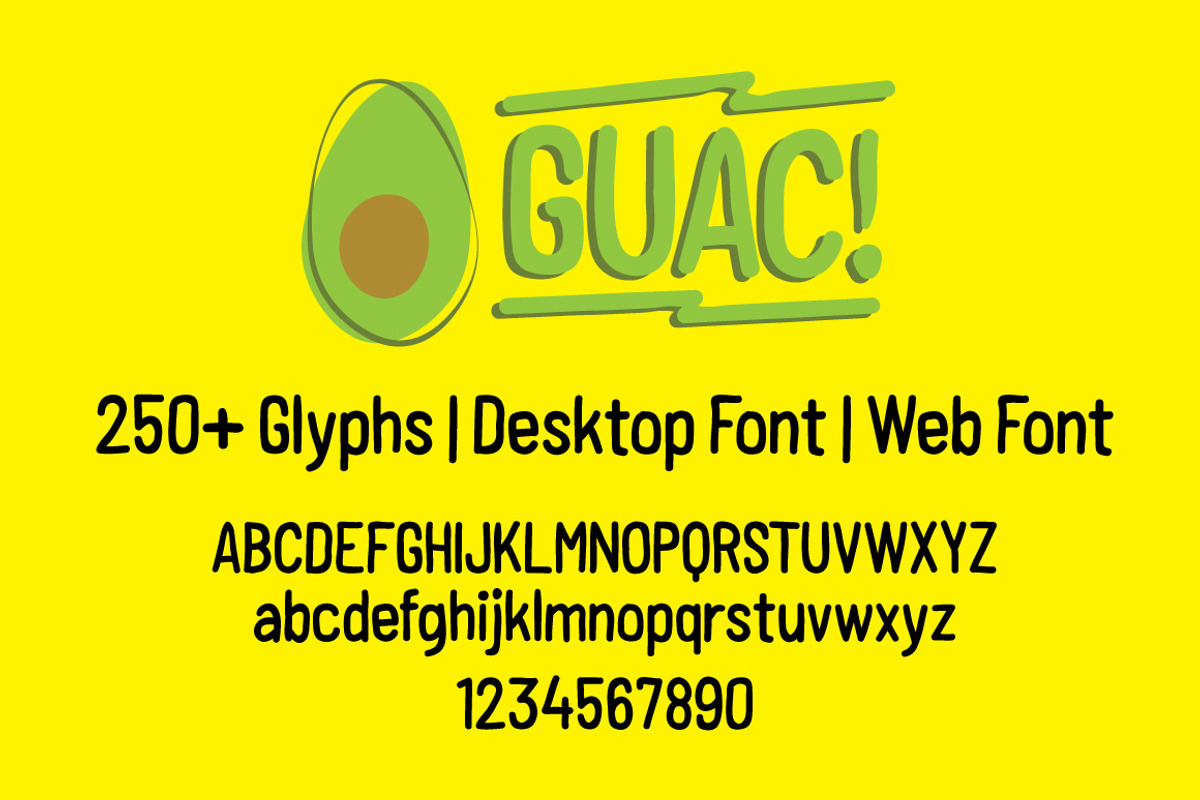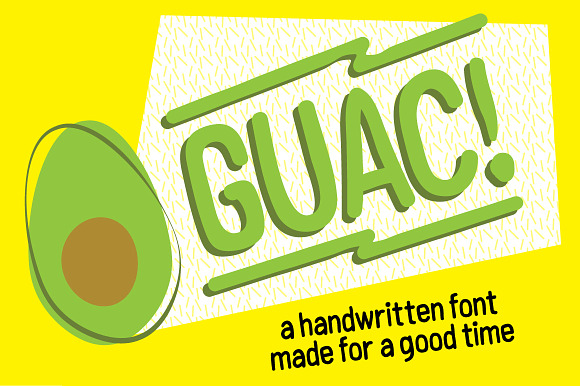
GUAC! Handmade Font For A Good Time.
Forget the bread, it's time to get this guac!
Guac is a fun, high energy, handwritten font that was made for a good time! Use it to help your brand stand out, from packaging, logos, stationery, all the way to web!
- The typeface includes over 250 glyphs including the full standard english alphabet as well as various accented letters, symbols, punctuation